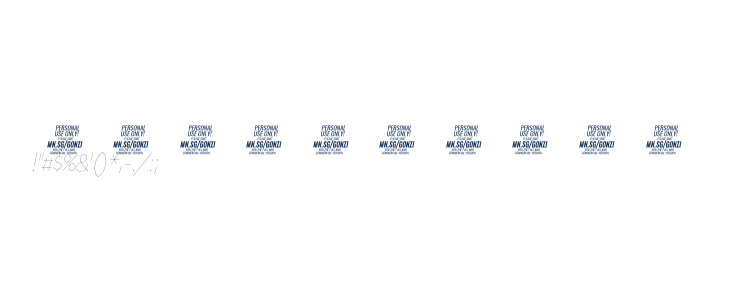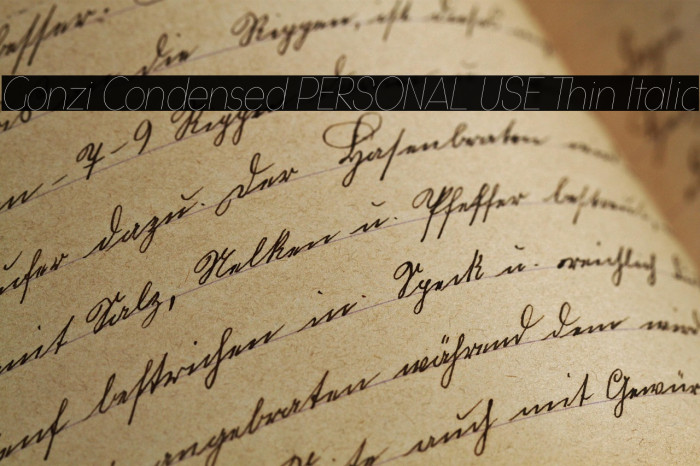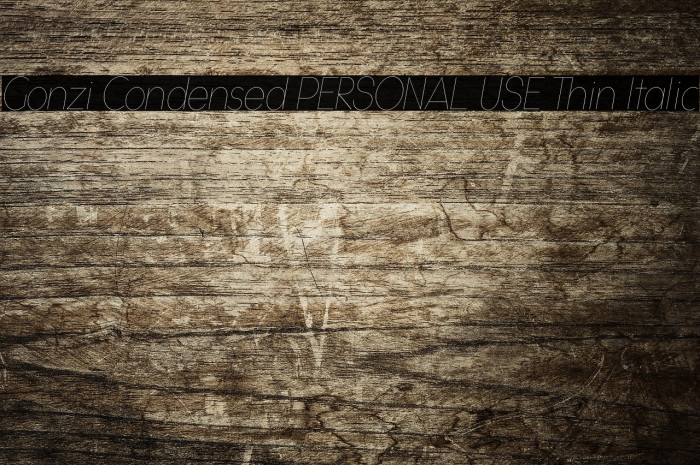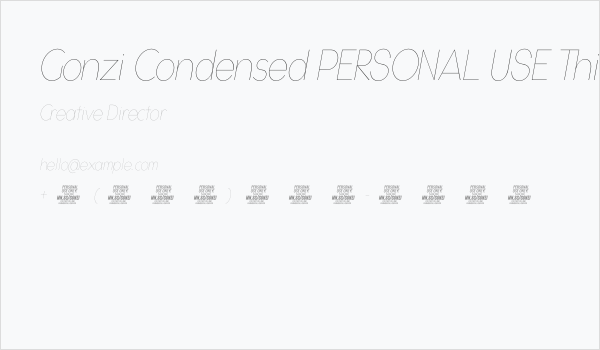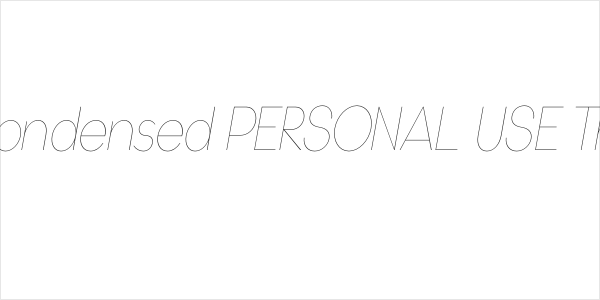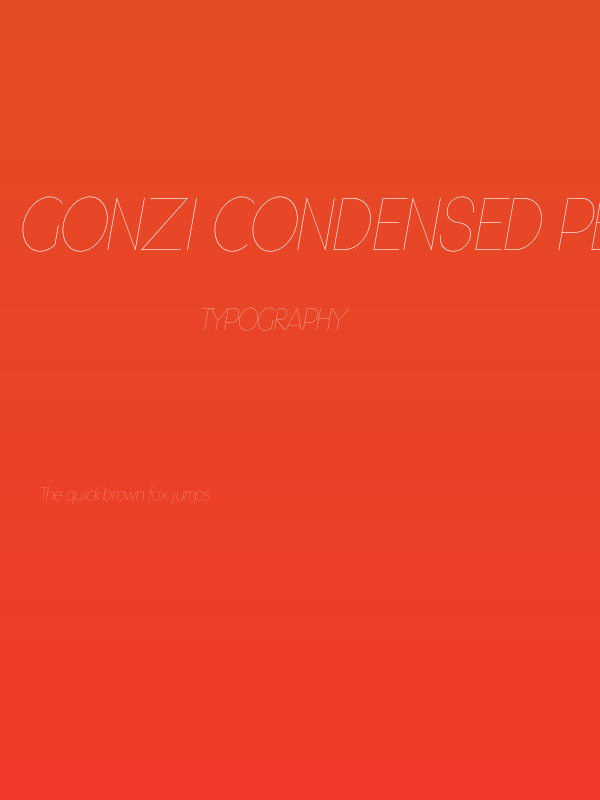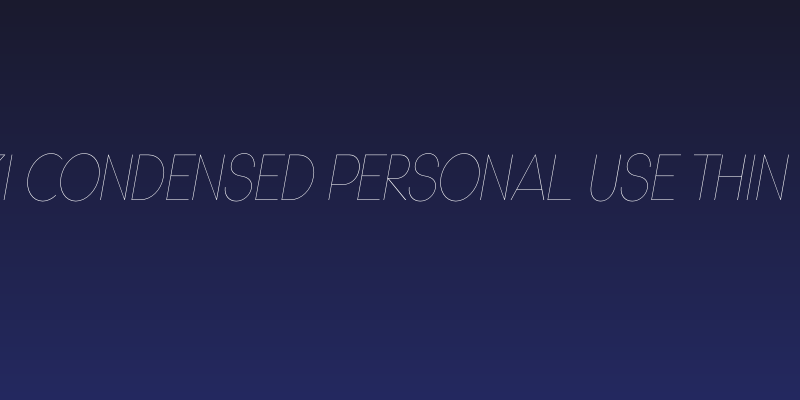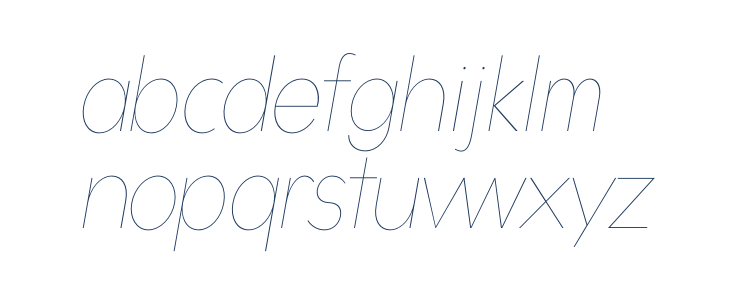
Gonzi Condensed PERSONAL USE Thin Italic Font
Gonzi Condensed PERSONAL USE Thin Italic Description
This font features a sleek, modern design with a condensed and italicized style. The thin strokes give it an elegant and sophisticated appearance, making it ideal for projects that require a touch of refinement. The uppercase and lowercase letters maintain a consistent slant, enhancing the italic effect. The numerals and special characters are designed to match the overall aesthetic, providing a cohesive look across all elements. The font's minimalistic approach and clean lines make it versatile for various design applications.
Use CaseHeadlines, Logos, Invitations
Proposed ProjectsIdeal for fashion magazines, modern branding, elegant invitations, and minimalist posters.